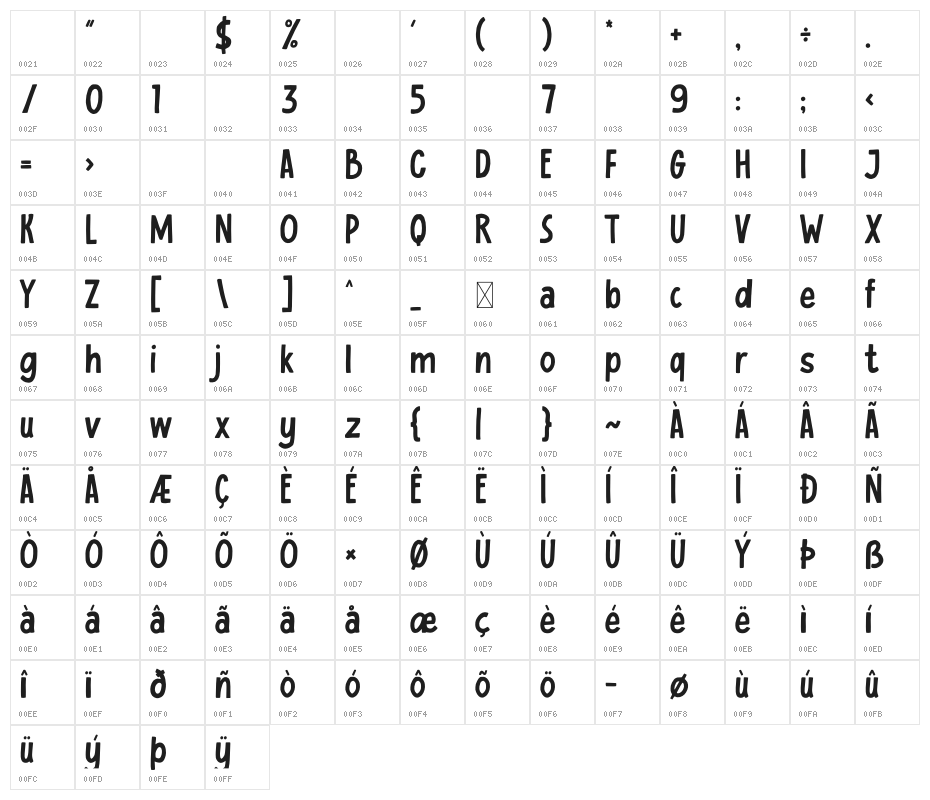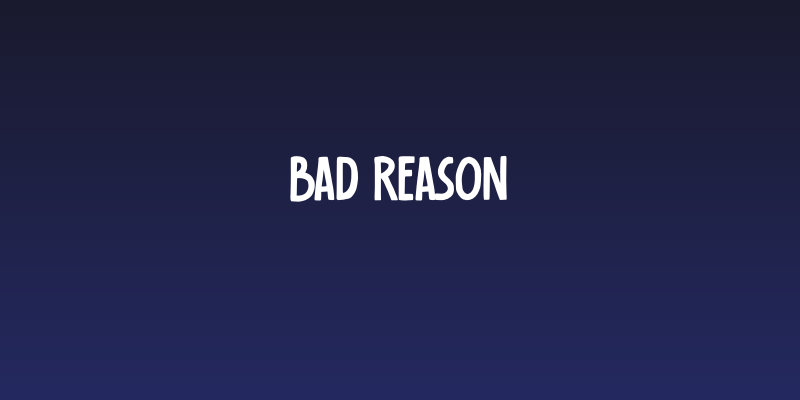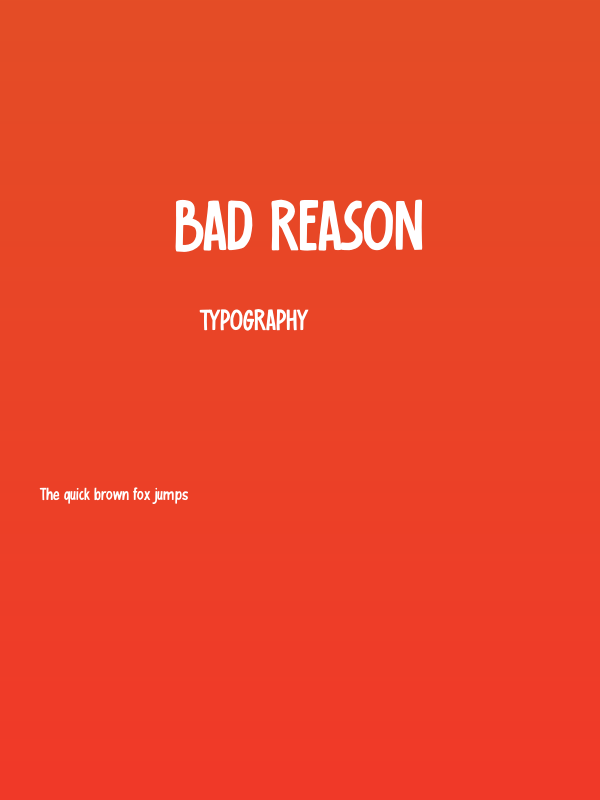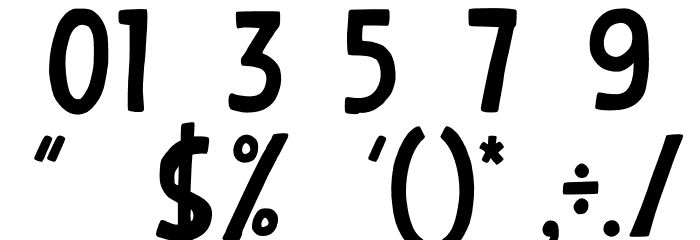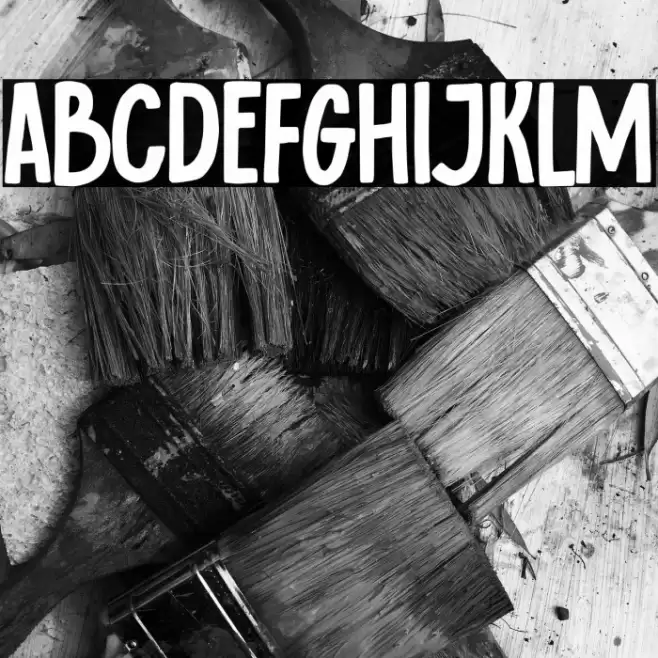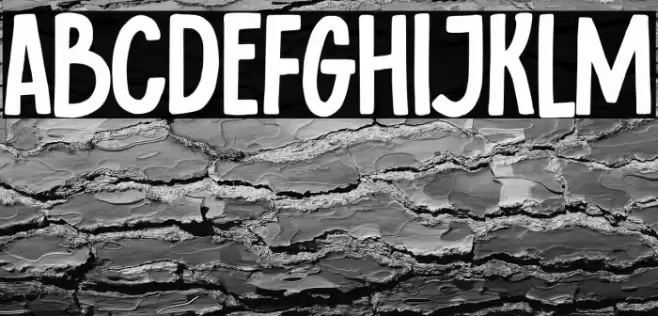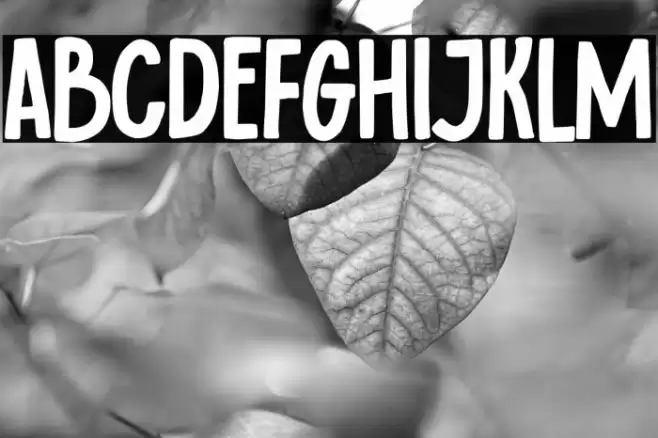
Bad Reason Font
Bad Reason Description
This font features a playful and informal style with a hand-drawn appearance. The letters are bold and slightly irregular, giving it a whimsical and approachable feel. The uppercase characters are tall and narrow, while the lowercase letters maintain a consistent height, contributing to a cohesive look. The numerals and special characters follow the same playful design, making them suitable for creative projects. The overall style is casual and friendly, ideal for designs that aim to convey a sense of fun and creativity.
| Proposed Projects | Great for children's books, playful branding, casual invitations, and creative posters. |